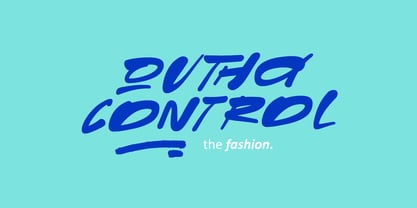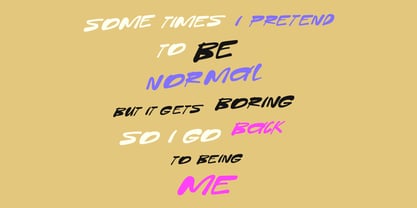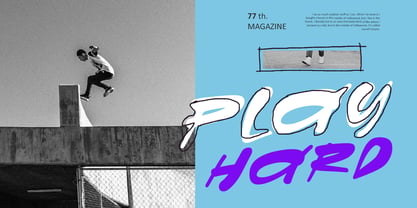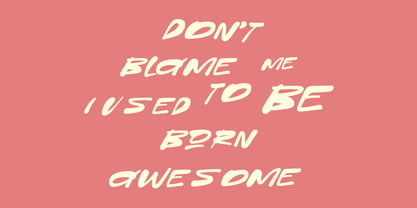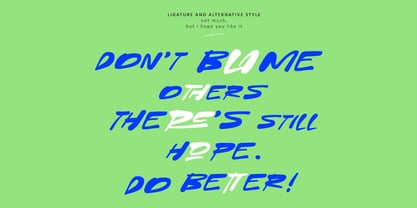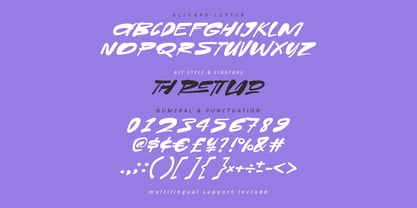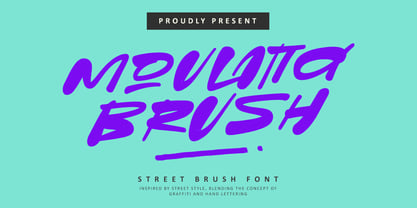
MC Moulatta
por Maulana Creative
La familia tipográfica MC Moulatta fue diseñada por Gilang Maulana y publicada por Maulana Creative. MC Moulatta contiene 1 estilos. Más información sobre esta familia
Give your designs an authentic handcrafted feel. “Moulatta Handmade Brush Font” is perfectly suited to stationery, logos and much more. Include alternative character and ligature characters.
Diseñadores: Gilang Maulana
Fundición: Maulana Creative